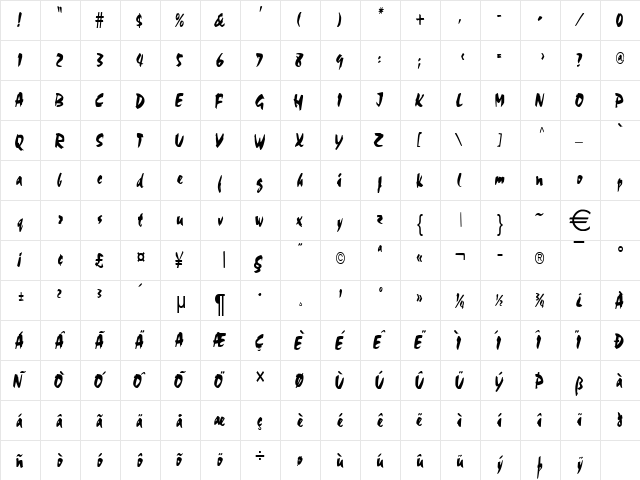
CocoaThin Normal Font Preview
CocoaThin Normal
Design Context for CocoaThin Typeface
CocoaThin is a composed and adaptable typeface that performs quietly and consistently across a wide range of design contexts. Its slender proportions lend an understated elegance to any composition.